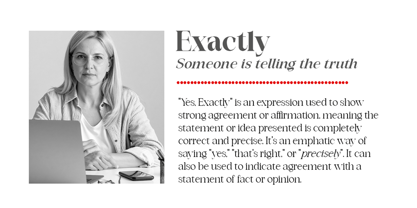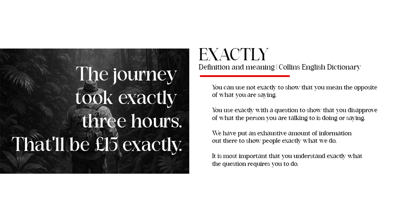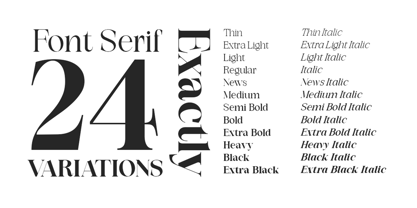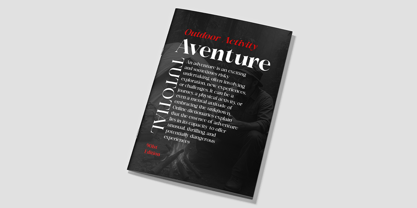
Exactly
by Artisan Studio
The Exactly Font Family was designed by Roiyani Teungku and published by Artisan Studio. Exactly contains 24 styles and family package options.
Exactly has a perfect balance between the familiar and the unexpected. With Exactly , designers can use this font for various needs in creating elegant design work.
please note, Exactly is a bold and expressive serif family font that adorns the pages of top fashion magazines and publications in print media and web pages. Exactly flows with vintage charm that supports contemporary design.
Exactly is a variation of letters with a slim style ranging from thin to thick. Exactly comes in 24 variations, including; 12 Regular upright fonts; 12 regular italic fonts.
This letter looks amazing in logos, magazines, and films. This letter will be perfect for branding, headlines, captions, paragraphs, and posters. Various thicknesses allow you to experiment with various applications. This letter is made to give an impression without sacrificing its beauty and readability